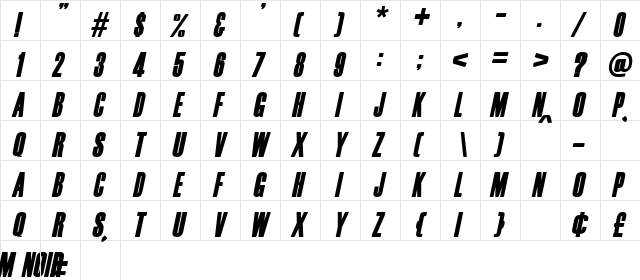
Film Noir Italic
Design Context for Film Noir Typeface
Film Noir is a composed and adaptable typeface that performs quietly and consistently across a wide range of design contexts. The dynamic lean of this cut emphasises speed and emphasis in any layout.
Pro Tip: Try Film Noir for annotation and caption copy alongside an upright companion — the contrast in angle creates a dynamic but ordered typographic system.